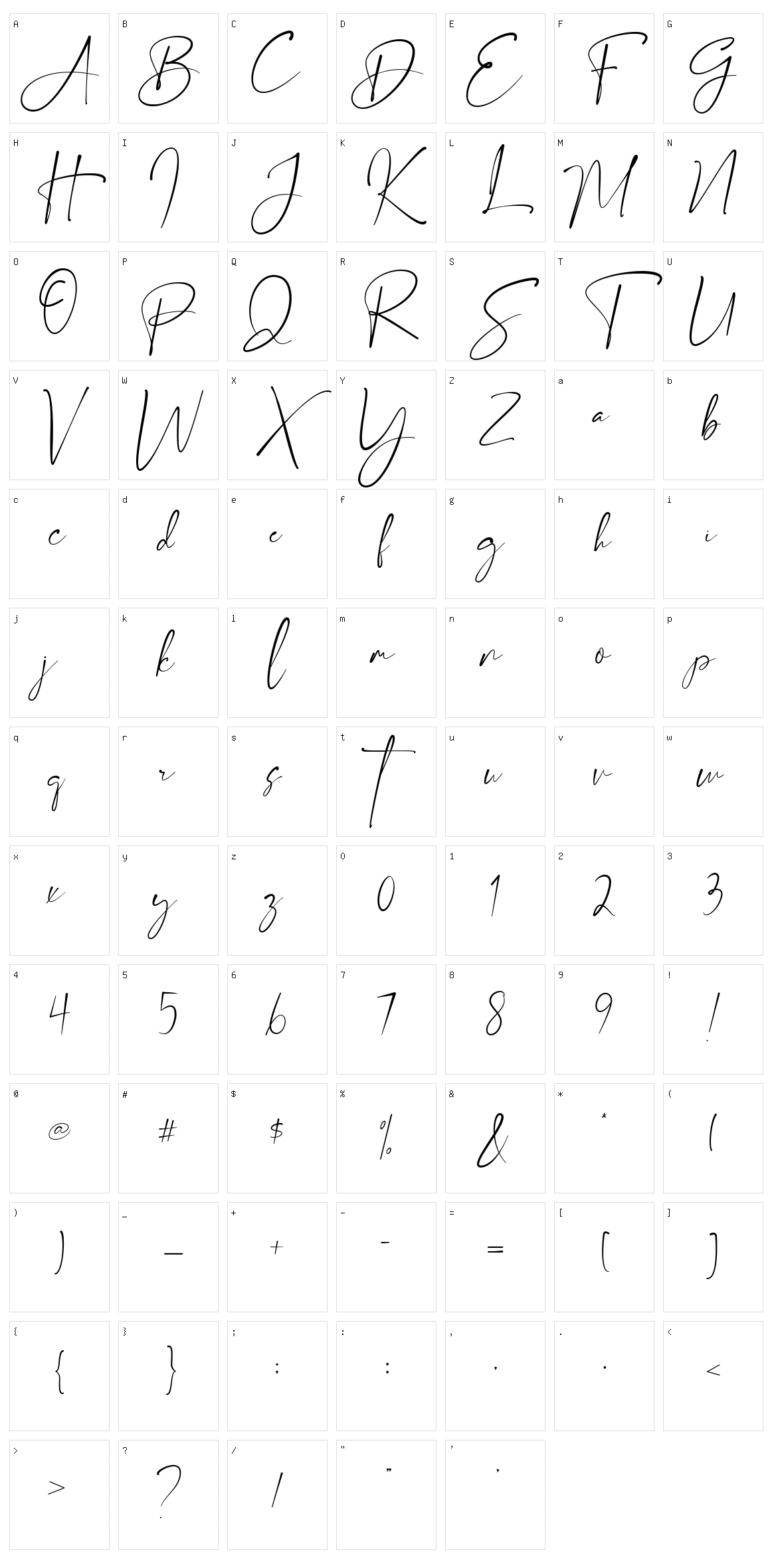
The free font Magnaline is carefully designed by Ramli Setiadi, showcasing a thoughtful balance of creativity and usability and falls under the Script font style. When you download the ZIP file, it contains only 81.46 KB of font files, making it lightweight and quick to download. Please review the license details below to understand permitted usage and distribution rights. If license information is not available, we recommend using this font for personal projects only or contacting the author directly for commercial usage permissions.